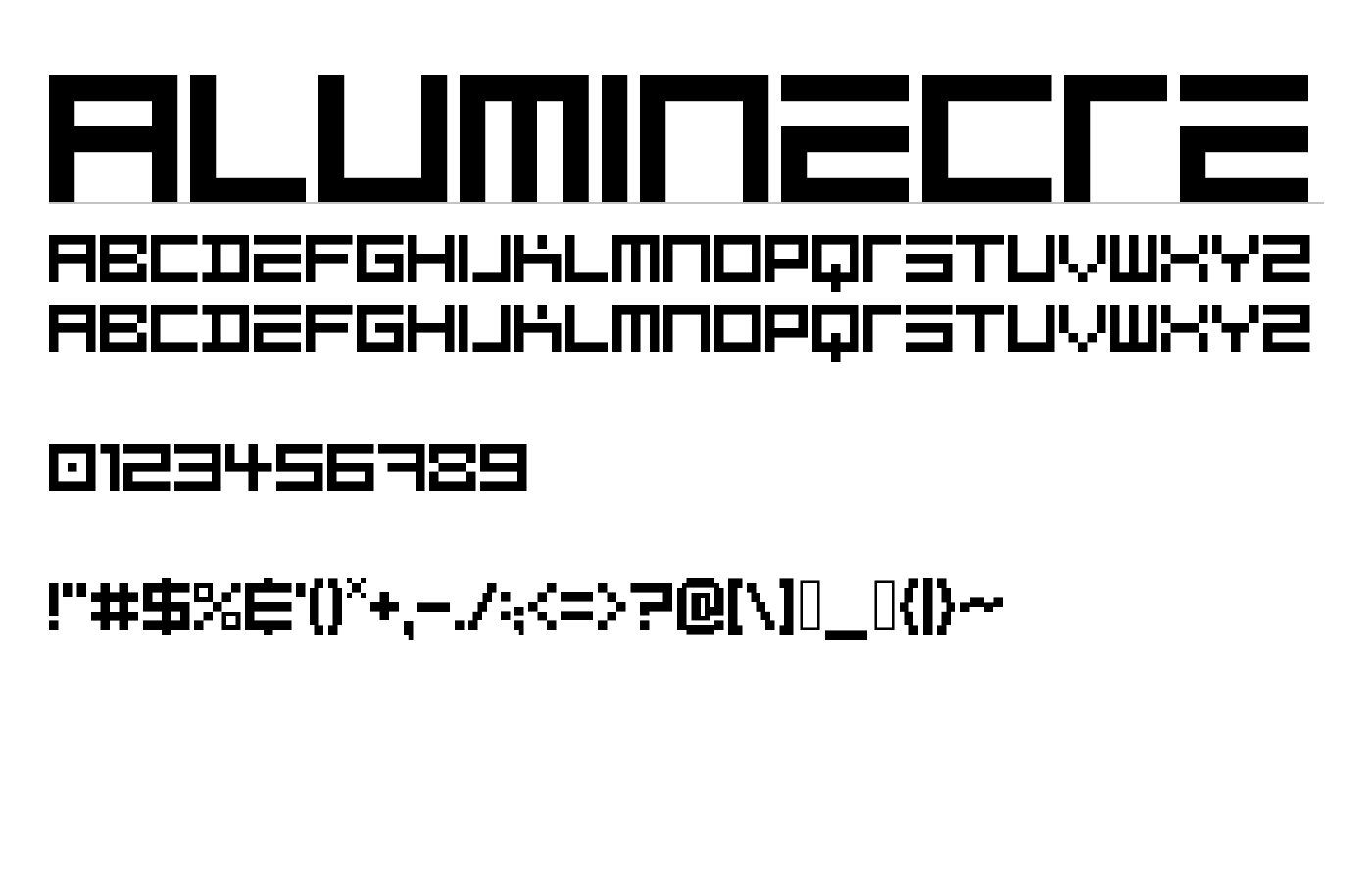
ALUMINECRE is a bold, geometric sans serif font with a square, blocky style that gives it a futuristic, tech-inspired feel. Its uniform stroke weight and pixelated edges create a modern, digital aesthetic perfect for headlines, logos, and branding in technology, gaming, or sci-fi contexts. This font stands out with its distinctive, modular letterforms that balance readability with a strong, contemporary personality.
ALUMINECRE Font
About ALUMINECRE Font